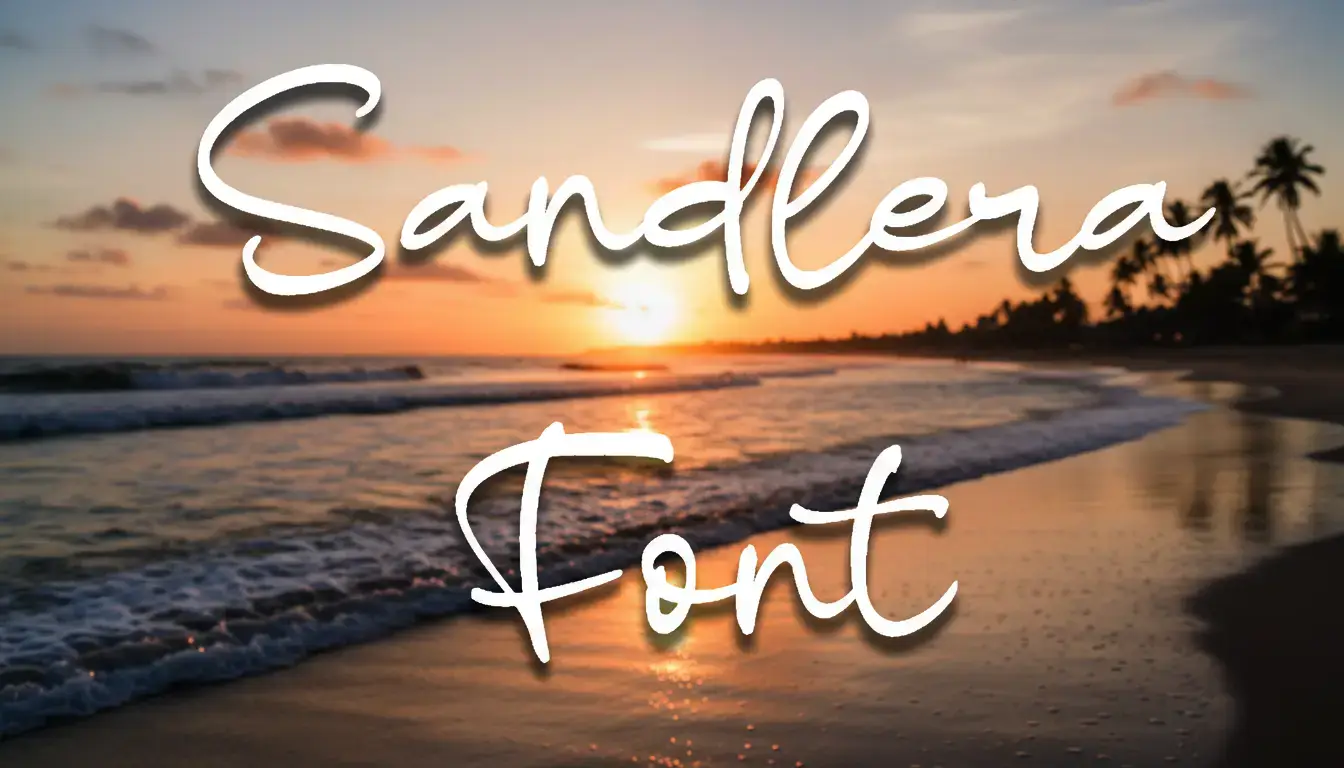
Sandlera Font
Sandlera
Sandlera is a script font made by Glorytype. The letters have the smooth movement of real pen lettering, which is why even a single name looks special in it. You can download it for free and test it with your own words in the preview above.
What You Can Type With Sandlera
With complete upper and lowercase letters and all ten digits, Sandlera is ready for real wording, not just a single headline. Everyday marks like &, !, ? and @ are there too. Thanks to its accented letters, it also works for Spanish, French, German, Portuguese and Italian, not just English.
Where Sandlera Works Best
Think of Sandlera for wedding invitations, logos and signature-style headings. Script fonts read best in short bursts, so keep it to names, titles and one-line quotes. Skip all caps: script capitals are drawn to start a word, not to fill one.
Does Sandlera support accented letters?
Yes. Sandlera includes the accented letters needed for Spanish, French, German, Portuguese and Italian, so it works for more than just English.